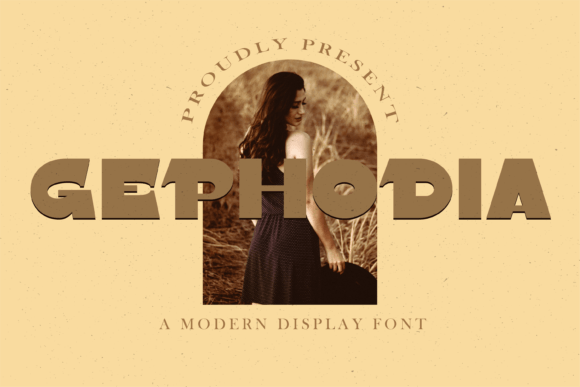
Introducing Gephodia Font, a bold and assertive serif font designed by monanza studio. This font is more than just a collection of letters; it's a powerful tool that will enhance your creative projects and captivate your audience. With its unique style and versatility, Gephodia is the perfect choice for adding a touch of elegance and sophistication to your designs.
When it comes to creating impactful quotes in Word or any other platform, Gephodia Font is the ultimate companion. Its strong and commanding presence will make your words stand out, leaving a lasting impression on anyone who reads them. Whether you're designing posters, social media graphics, or even a personal blog, this font will effortlessly elevate your message and make it memorable.
But Gephodia Font is not just about aesthetics. It's also incredibly functional and user-friendly. Its well-crafted letterforms ensure legibility, even at smaller sizes, making it suitable for both print and digital applications. You can confidently use it in various projects, knowing that your typography will always look professional and polished.
As you browse through the collection of fonts in your library, Gephodia will consistently catch your eye. Its timeless appeal and meticulous attention to detail make it a must-have for designers and creatives alike. Each character exudes a sense of confidence and authority, creating a visual experience that commands attention and sparks curiosity.
Remember, Gephodia Font is not just a font; it's a statement. So why settle for ordinary when you can make a bold impression? Elevate your designs, captivate your audience, and immerse yourself in the power of Gephodia Font.